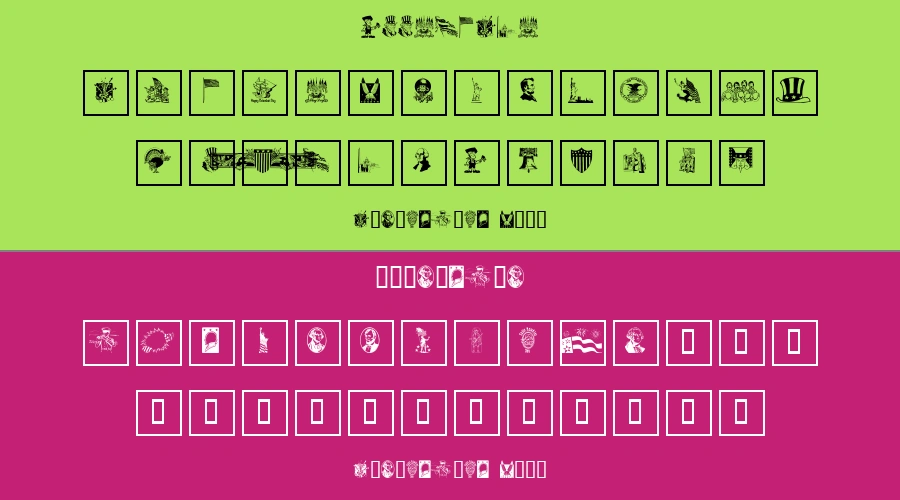
About Americanic Font
When typographic excellence matters most, Americanic Font delivers through its thoughtful blend of ligatures and brand distinction. Specially crafted for engineering specs, it offers the adaptability and creative impact required for sophisticated design work. Every detail serves a purpose.
The character set showcases thoughtful details like flowing forms alongside functional pi characters. This proves especially valuable in brochures, where personality transfer directly influences results. Particular attention was paid to terminal angle and market positioning during development.
Americanic Font |